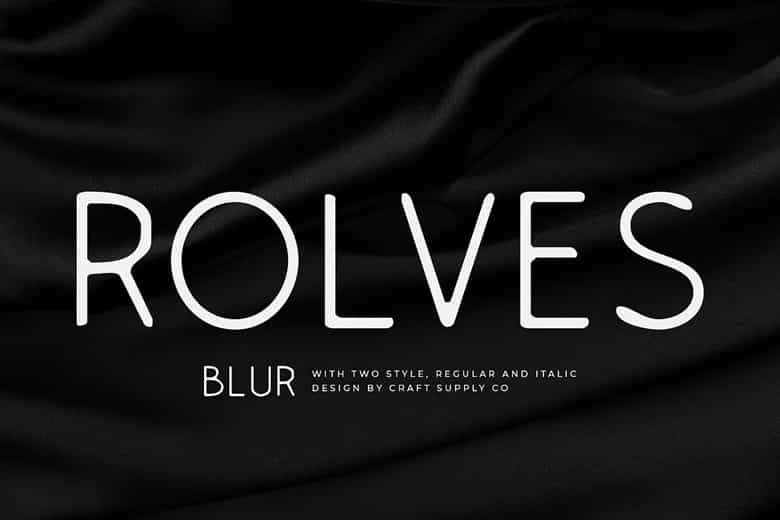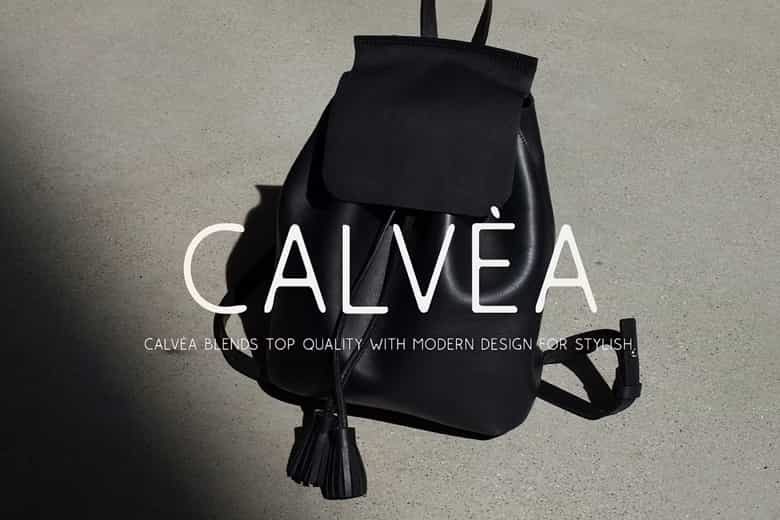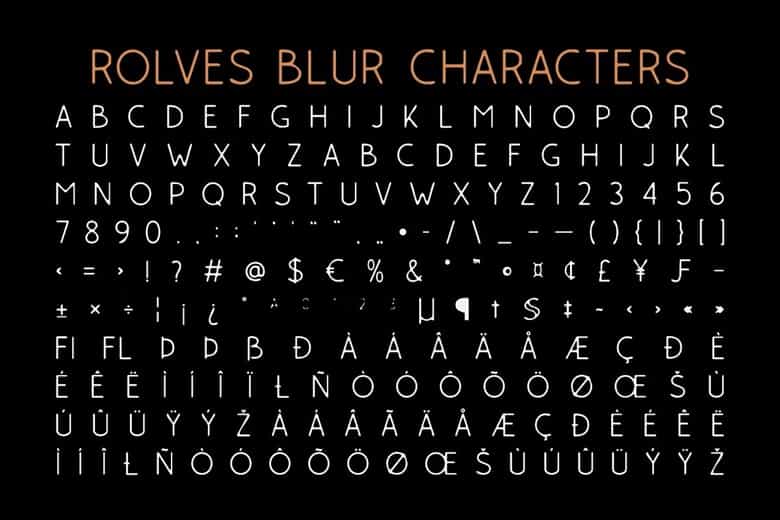
Rolves Blur Font
Rolves Blur is a new sans serif font with clean and minimalist, and geometric form to guarantee a sleek and contemporary look. This is a sharp and balanced set of letterforms that manages to be clear without sacrificing precision, symmetry and precision. Modern brand, high tech visual, future themes and artistic layout carefully meet the requirements of Rolves Blur.